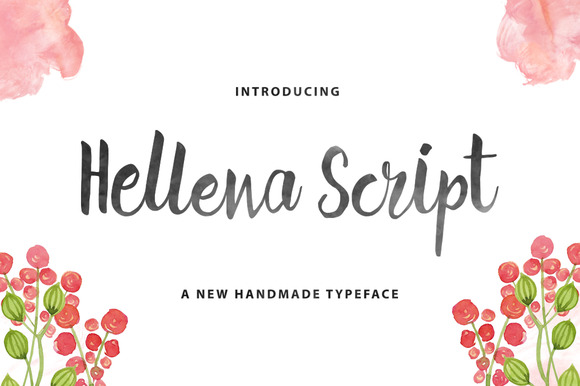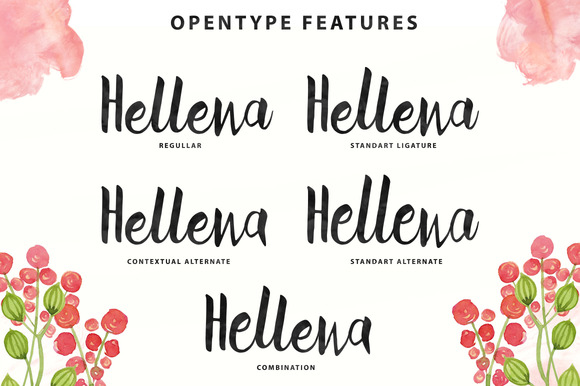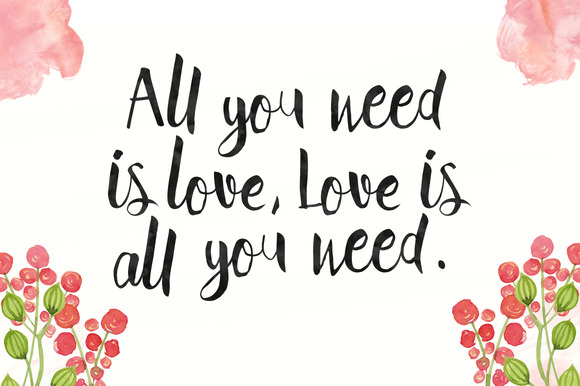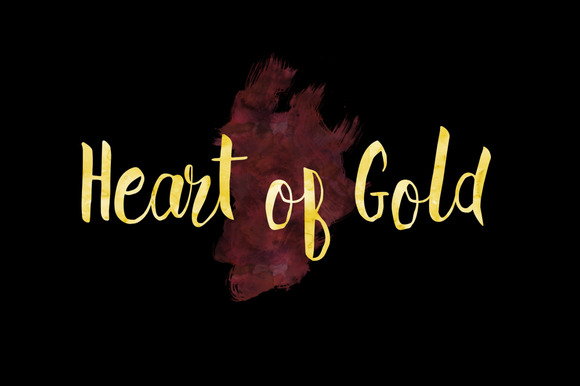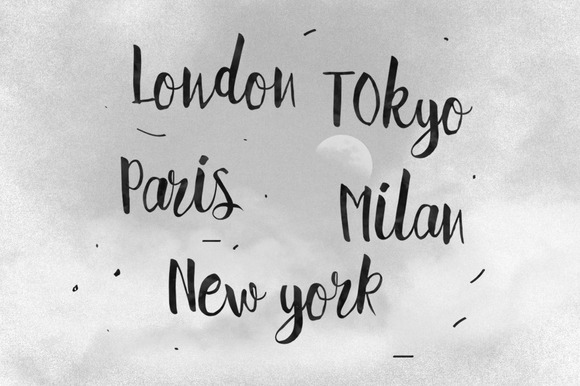
HomeScript FontsHellena Script Font Script Fonts Hellena Script Font FacebookXPinterestWhatsApp Hellena Script Font Poster 2 Hellena Script Font Poster 3 Hellena Script Font Poster 4 Hellena Script Font Poster 5 About Hellena Script Font Hellena Script is a beautiful handmade brush script with a natural look. DOWNLOAD NOW People also explored Rager Font Garavito Font Ink Hill Font Mine Valentine Font Drinks Font Pomade Font Febriella Font Vintage Signature Font Penelope Font 315 0 TagsHellena Script Font Previous articleDreamlight FontNext articleGreatpark Font LEAVE A REPLY Cancel reply Comment: Please enter your comment! Name:* Please enter your name here Email:* You have entered an incorrect email address! Please enter your email address here Website: Save my name, email, and website in this browser for the next time I comment. Personal Use Free Hysteria Santa Personal Use Free Read more about this font The Most Beautiful Gift Personal Use Free Read more about this font Anggraini Personal Use Free Read more about this font BD Pipe Personal Use Free Read more about this font BLOG Fonts That Capture the Spirit of New York City New York City is more than just a place—it’s an experience, a rhythm, a visual language... 5 Fonts That Will Dominate Design Trends in 2026 Free vs Paid Fonts: Why Investing in Premium Fonts Is Worth It To increase your work productivity, choose the most readable fonts.